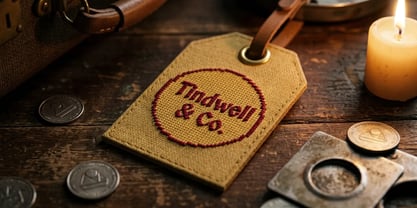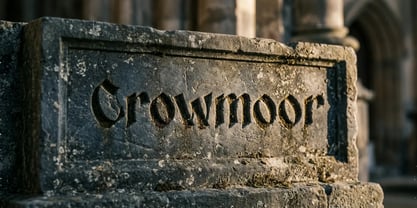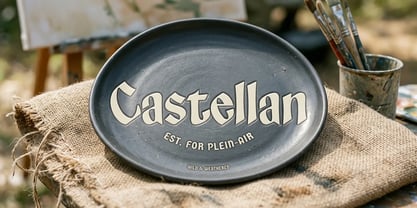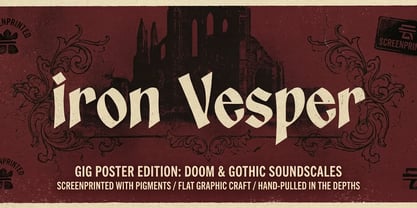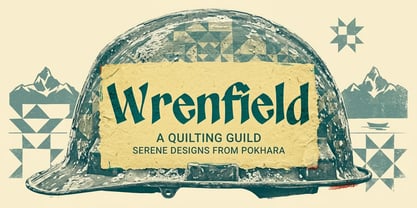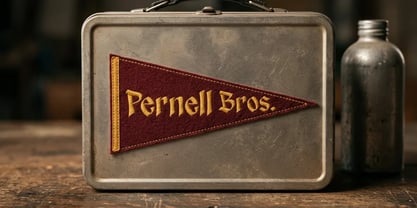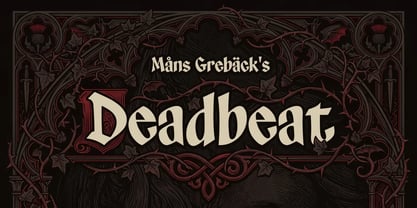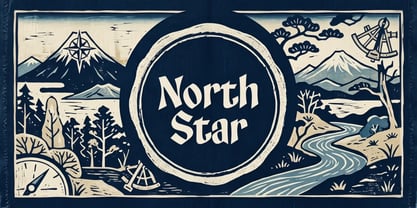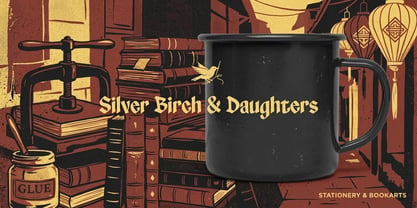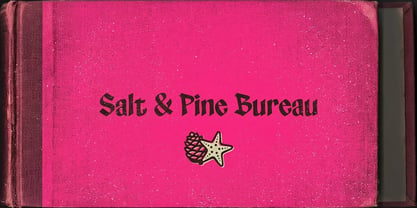
Deadbeat
La familia tipográfica Deadbeat fue diseñada por Måns Grebäck y publicada por Mans Greback. Deadbeat contiene 4 estilos y opciones de paquete familiar. Más información sobre esta familia
Deadbeat is a dark display typeface that leans on blackletter bones without the stiffness.
The strokes are heavy and slightly condensed, breaking into sharp, pointed terminals that give the lettering a restless, gothic edge. Capitals and lowercase carry the same spiked rhythm, so longer words keep their bite.
It belongs on the label of a small-batch bottle or the back of a worn-in leather jacket, somewhere just past midnight.
The font is built with advanced functionality and guaranteed top-notch quality, containing stylistic and contextual alternates, ligatures and more automatic and manual features; all to give you full control and customizability.
It has extensive lingual support, covering all Latin-based languages, from North Europa to South Africa, from America to South-East Asia. It contains all characters and symbols you'll ever need, including all punctuation and numbers.
Designed and created by Mans Greback.